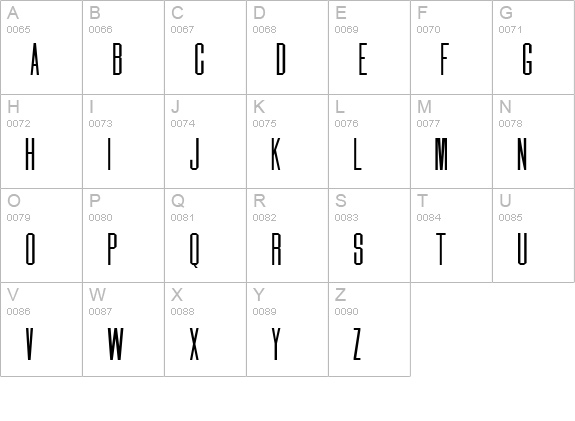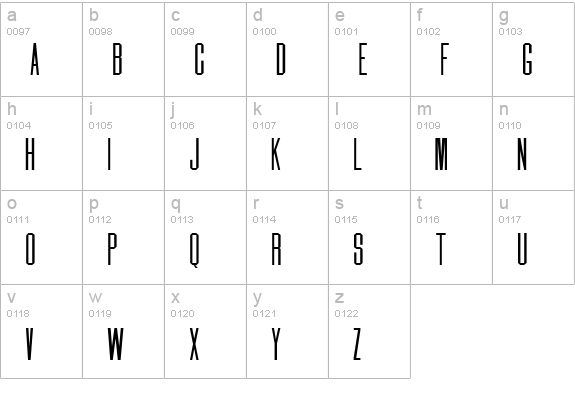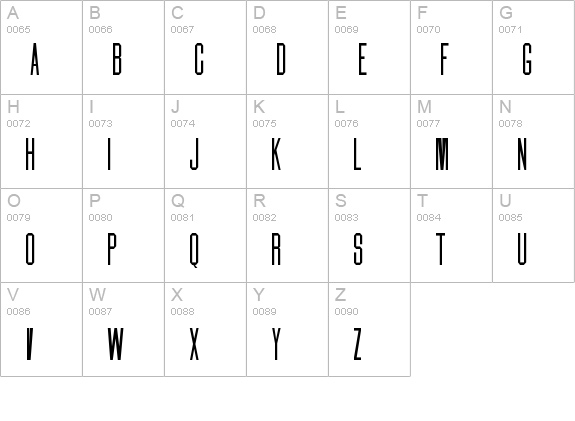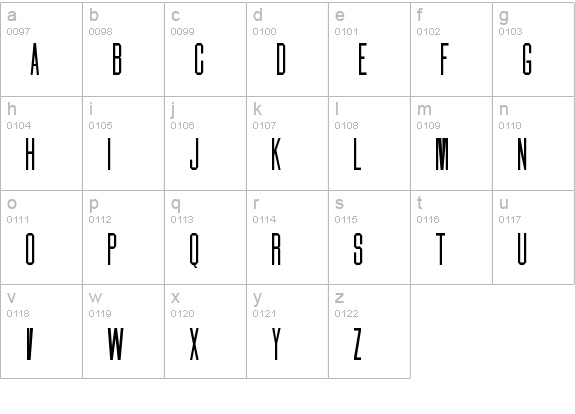
Daily Medium Font Details
Daily Medium is a balanced, medium-weight variant in the Daily typeface family \xE2\x80\x94 well suited to sub-headlines, navigation, and balanced editorial work.
Introducing Daily Medium font, a versatile and captivating typeface that effortlessly combines elegance with readability. This font is perfect for both digital and print designs, making it an essential addition to any designer's toolkit. With its balanced proportions and clean lines, Daily Medium font exudes a sense of modernity and sophistication. Whether you're creating a logo, designing a website, or crafting a brand identity, this font will elevate your work to new heights. But what sets Daily Medium font apart is not just its stunning aesthetics, but also its accessibility. This font is freely available to download at FontsMarket.com, making it a valuable resource for both professional designers and casual enthusiasts alike. Say goodbye to expensive font licenses and hello to the freedom of creativity with Daily Medium font. With its extensive character set, Daily Medium font offers support for multiple languages, ensuring that your message can be expressed in any corner of the world. Its legibility remains intact across various sizes and mediums, allowing your words to shine no matter the context. Whether you're designing for a corporate client, a personal project, or anything in between, Daily Medium font is the perfect choice. Its versatility and timeless appeal make it suitable for a wide range of applications, from headlines to body text, invitations to product packaging. So, why settle for less when you can have it all? Embrace the beauty and functionality of Daily Medium font and let your creativity soar. Download this font for free at FontsMarket.com and explore the endless possibilities it offers. Elevate your designs and make a lasting impression with Daily Medium font.